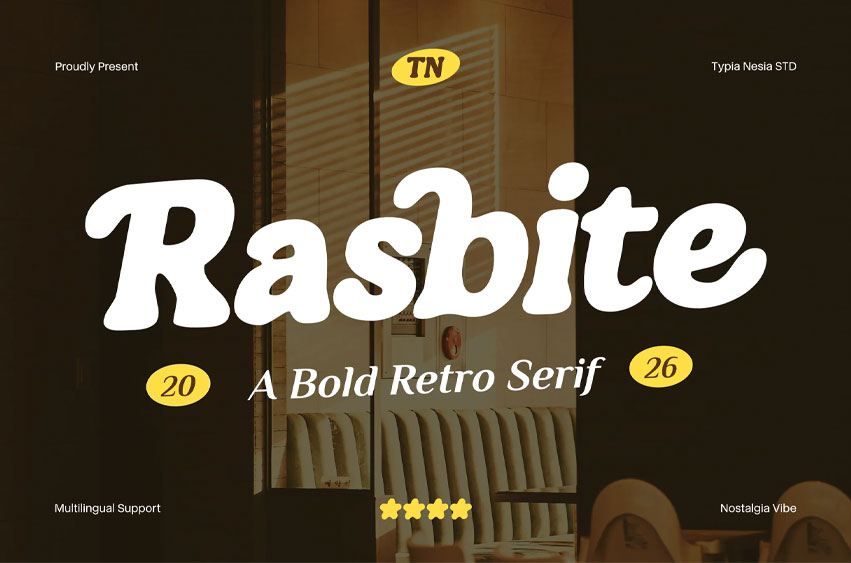
Rasbite Font is a bold retro italic serif font inspired by vintage aesthetics, summer vibes, and classic groovy typography. Featuring soft curves, elegant swashes, and chubby letterforms, this font delivers a nostalgic yet stylish appearance that instantly captures attention.
Designed for creatives who love vintage-inspired visuals, Rasbite is perfect for logos, packaging, branding, music posters, café identities, summer-themed projects, product labels, and eye-catching headlines. Blending classic serif elegance with bold retro energy, this font creates a unique visual statement that stands out across both print and digital designs.